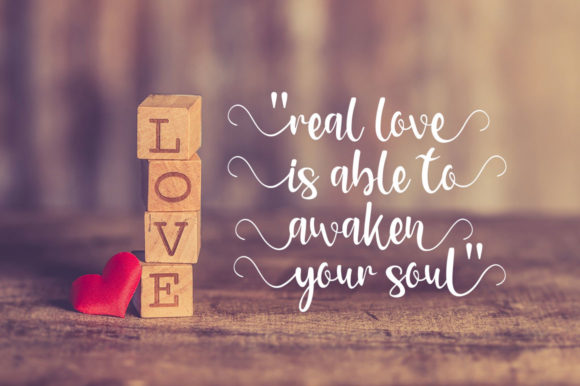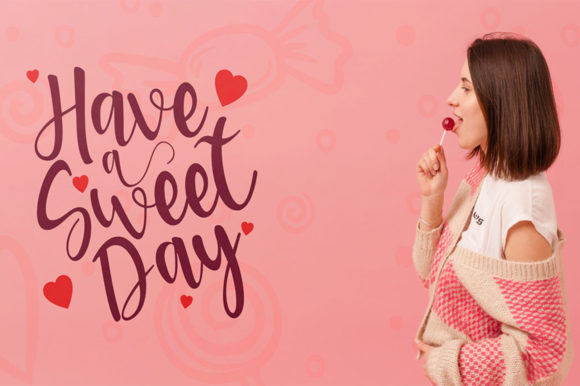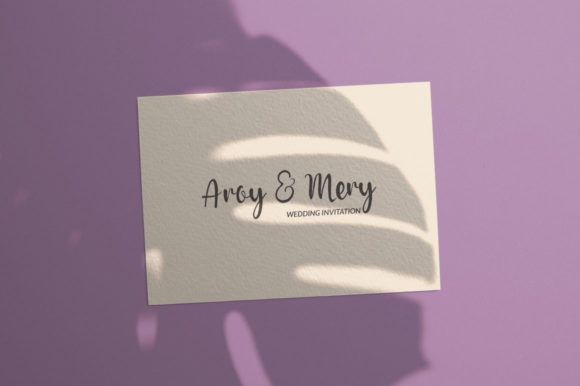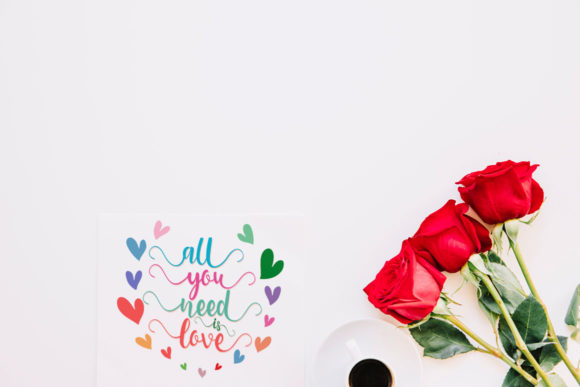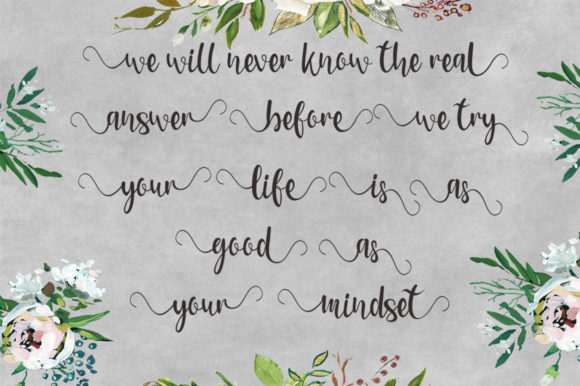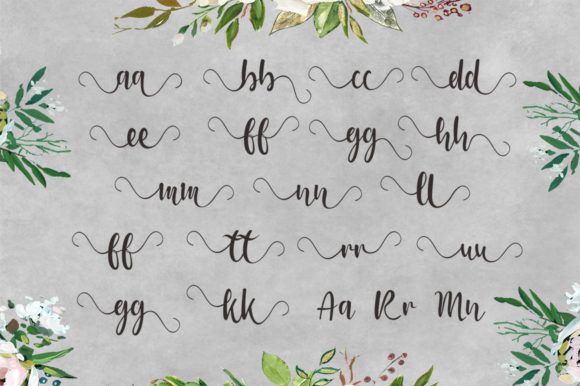
Meryana Font
About Meryana Font
Meryana is a modern script font, created with ink and a brush. It will elevate a wide range of design projects to the highest level, be it branding, headings, wedding designs, invitations, signatures, logos, labels, and much more!